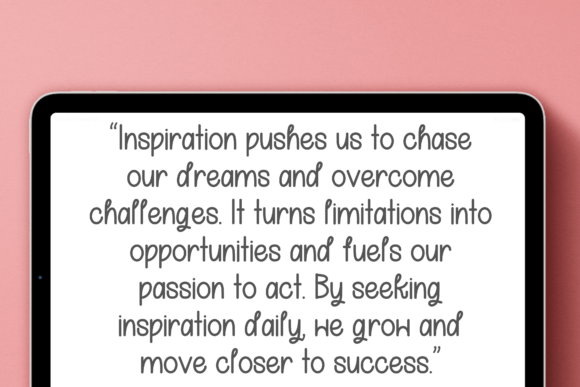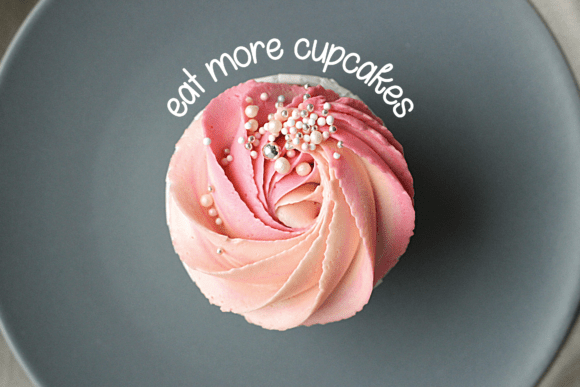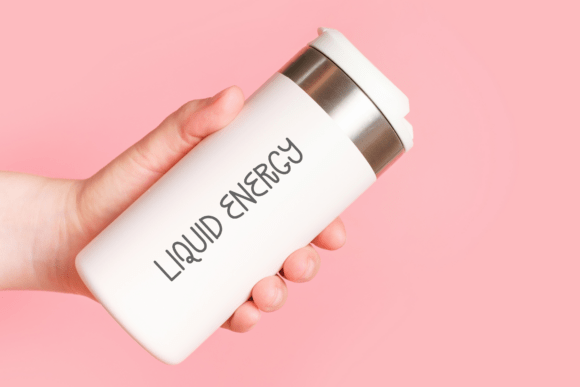
Introduction to Hey There February Font
Add a touch of quirky charm to your everyday designs with Hey There February, a playful handwritten font that perfectly balances personality with excellent legibility.
Featuring clean, bouncy strokes, this versatile typeface is designed to give your projects an authentic, personal feel It is the perfect choice for inspiring social media quotes, digital journaling, cute branding, and personalized merchandise like tumblers or mugs.
Key Features of Hey There February Font
Why Choose Hey There February Font?
Hey There February Font offers exceptional quality and versatility, making it a valuable addition to your design toolkit. Whether you’re creating for personal projects or commercial use, Hey There February Font delivers professional results.